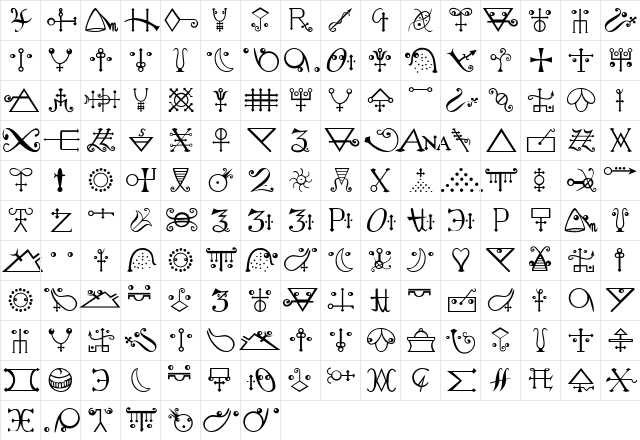
ForAlchemistsOnly Regular
Design Context for ForAlchemistsOnly Typeface
ForAlchemistsOnly is a composed and adaptable typeface that performs quietly and consistently across a wide range of design contexts.